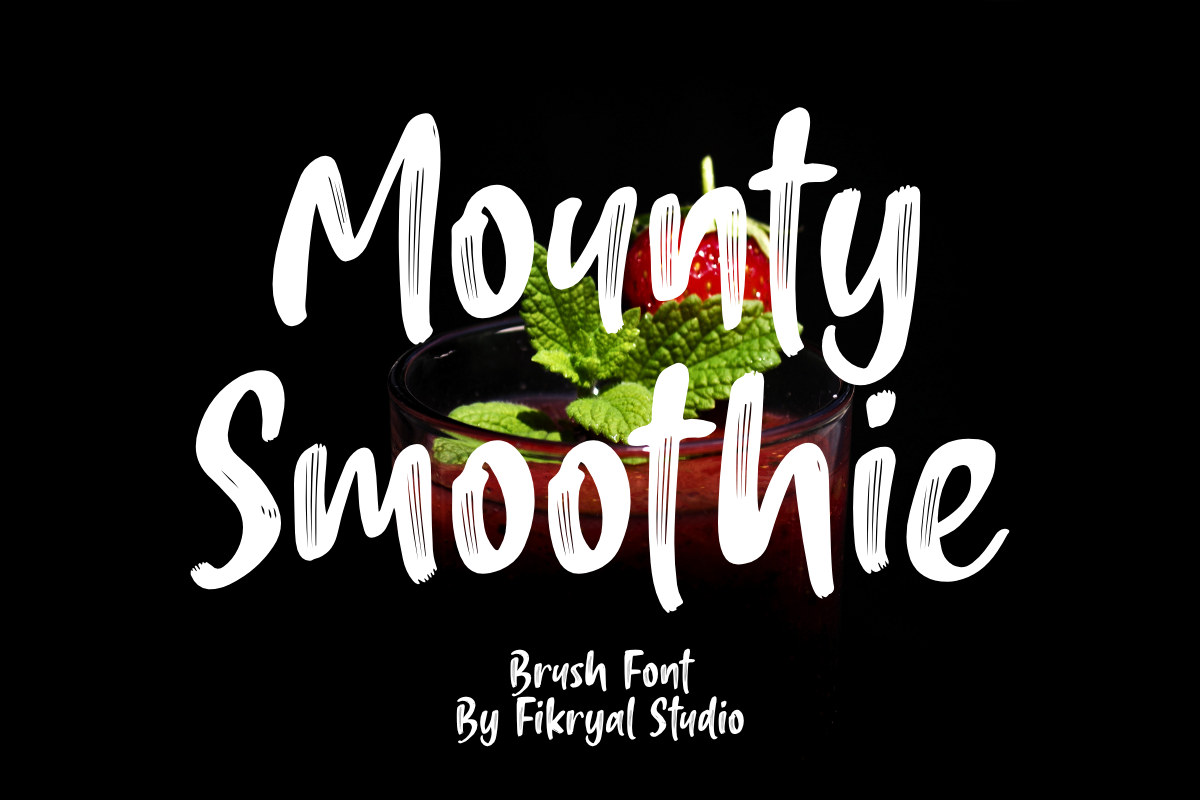
- Mounty Smoothy – Brush Font
Introducing Mounty Smoothy, a bold and playful handwritten brush font that brings a fresh and energetic personality to your designs. Inspired by natural strokes and smoothie vibes, this font is perfect for branding projects, packaging, advertising, poster titles, social media content, and more.
With its casual brush texture and slightly messy charm, Mounty Smoothy adds a handcrafted, personal touch while maintaining legibility and impact. Whether you’re designing for food & beverage brands, lifestyle content, or eye-catching merchandise, Mounty Smoothy will deliver flavor and character in every letter.
Let your designs stand out with the delicious personality of Mounty Smoothy – where creativity meets flavor!